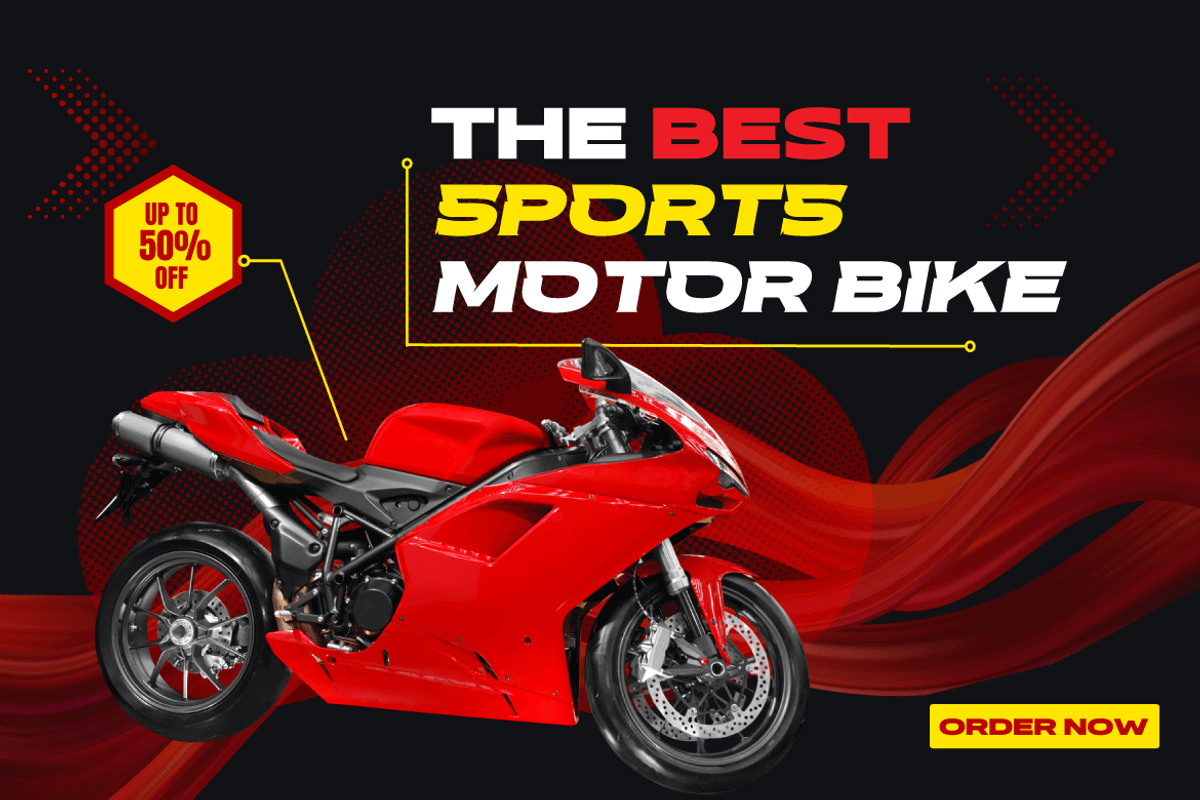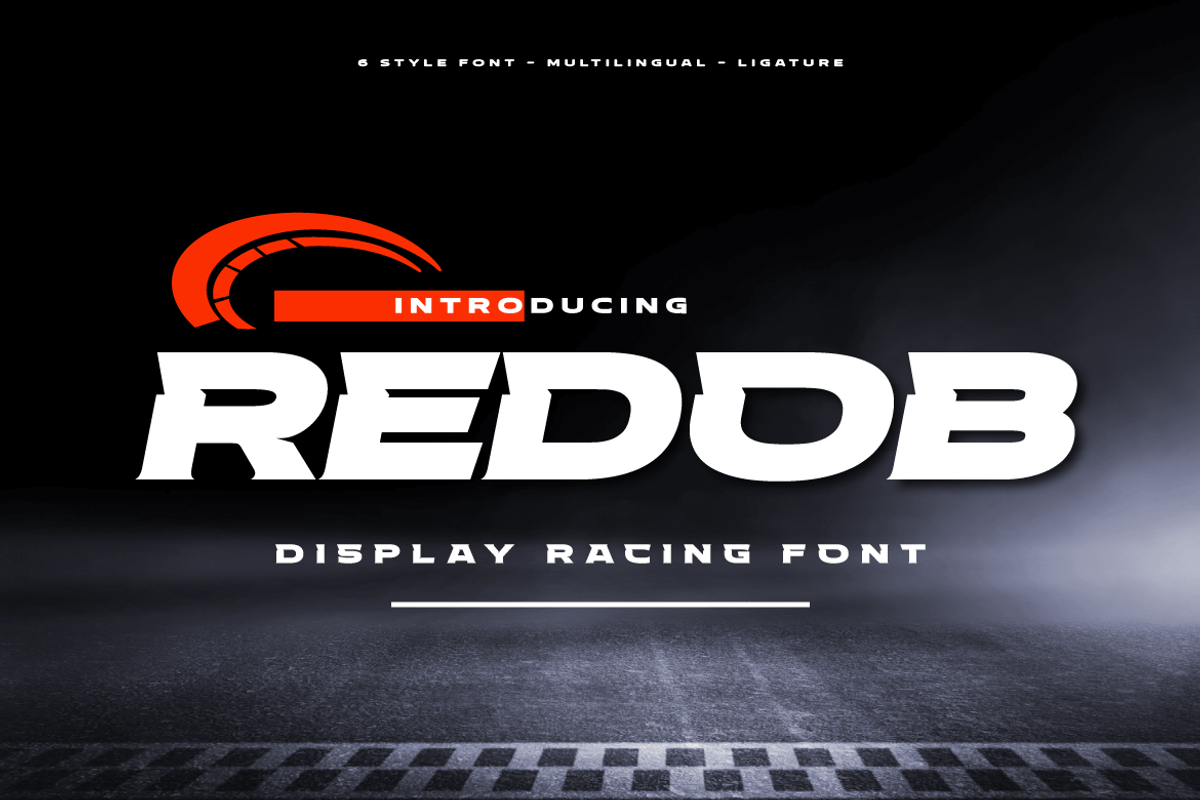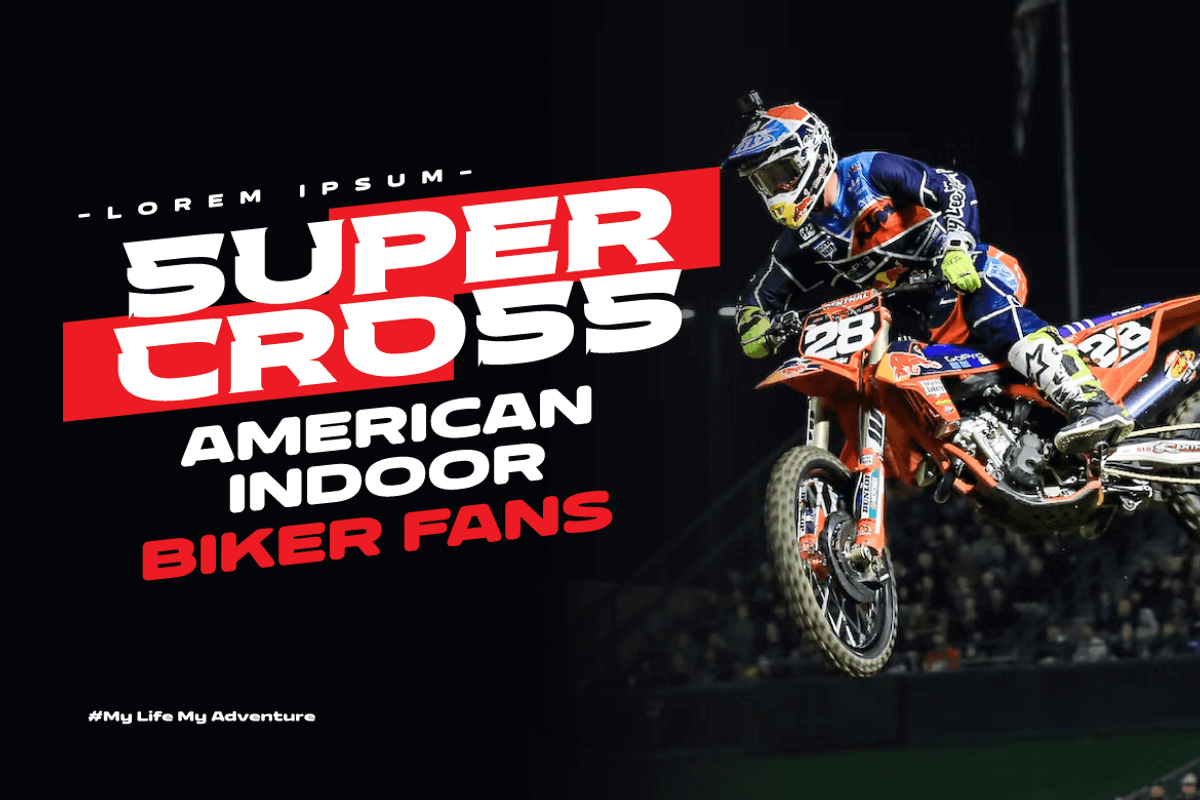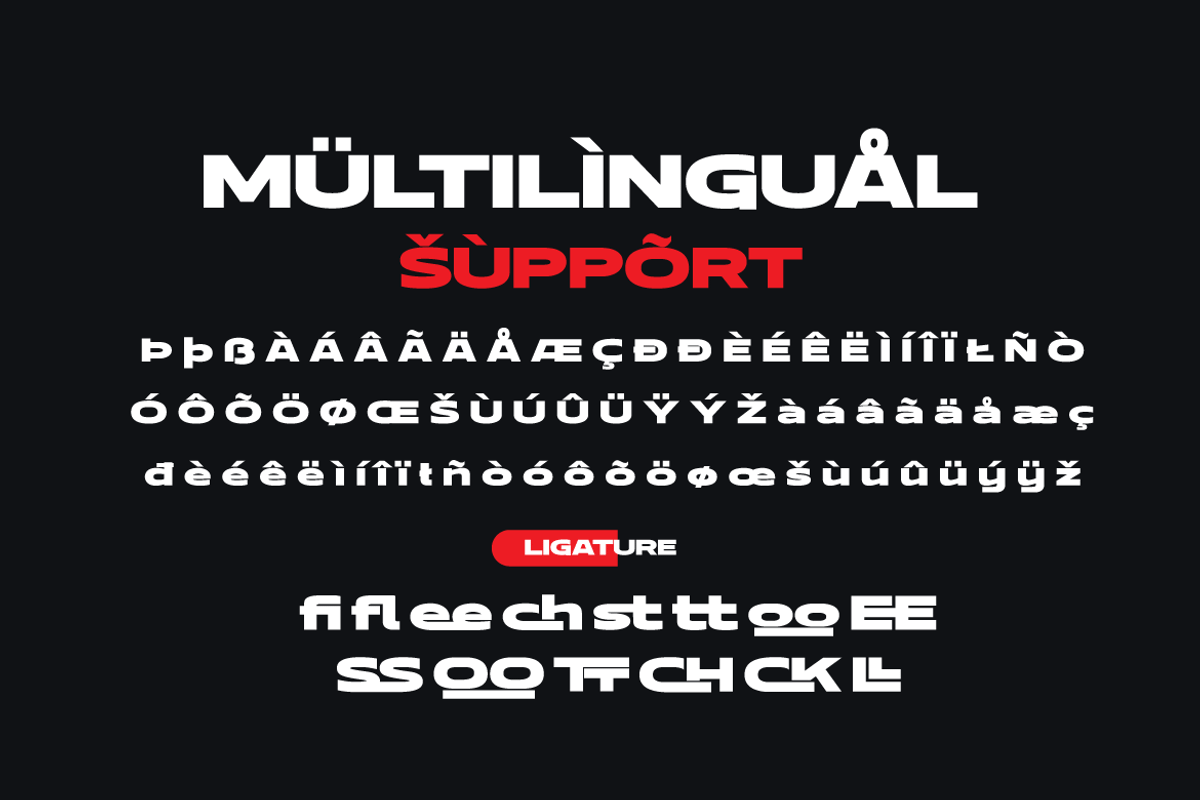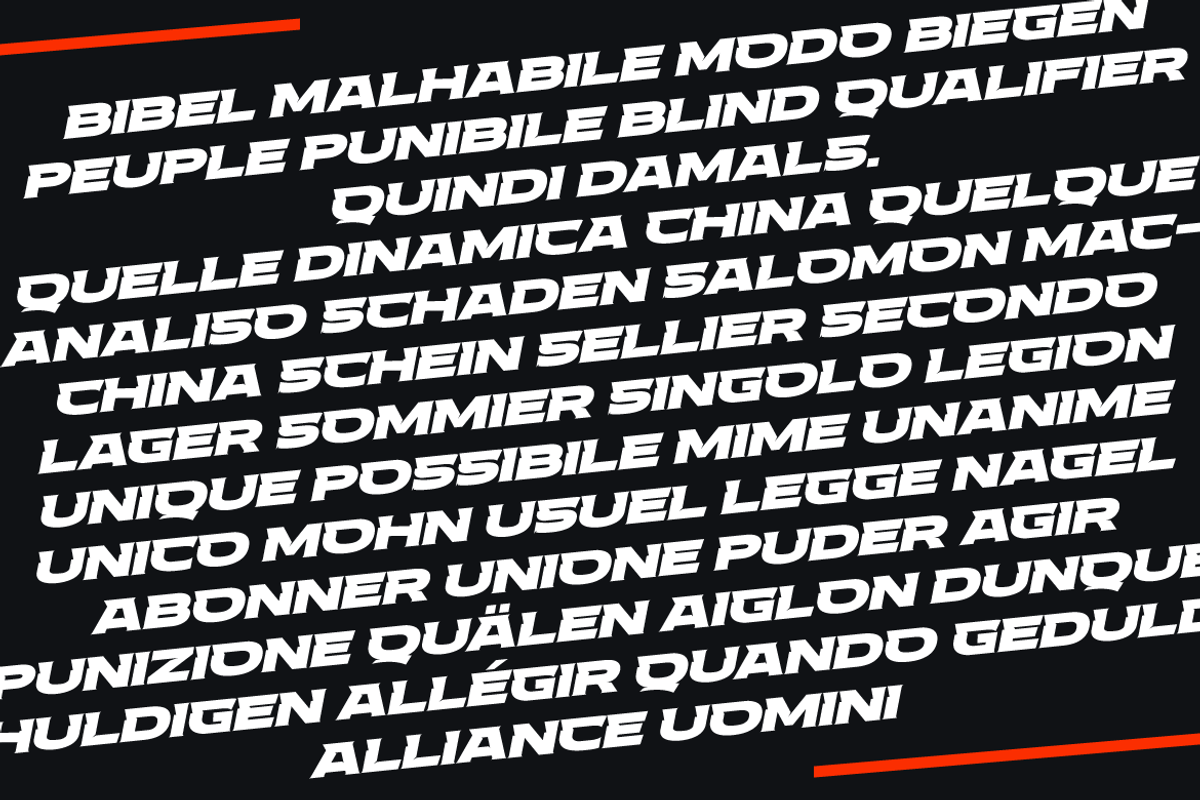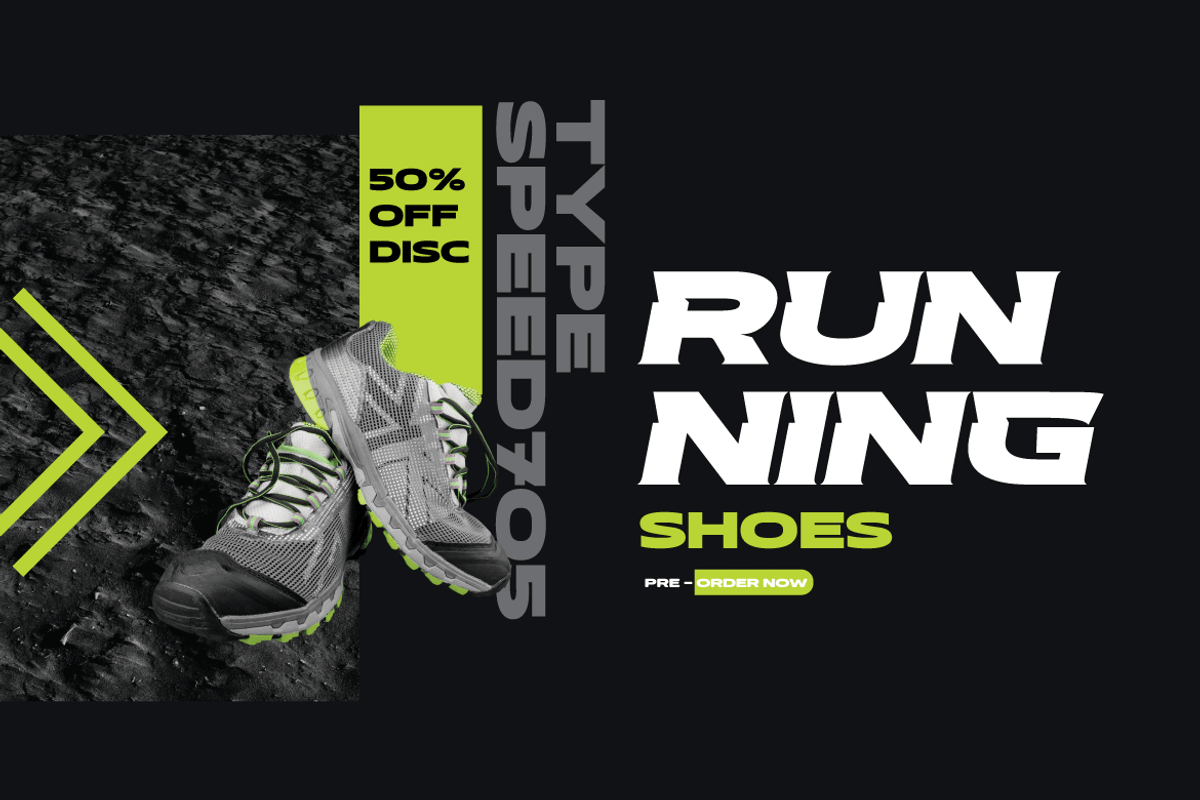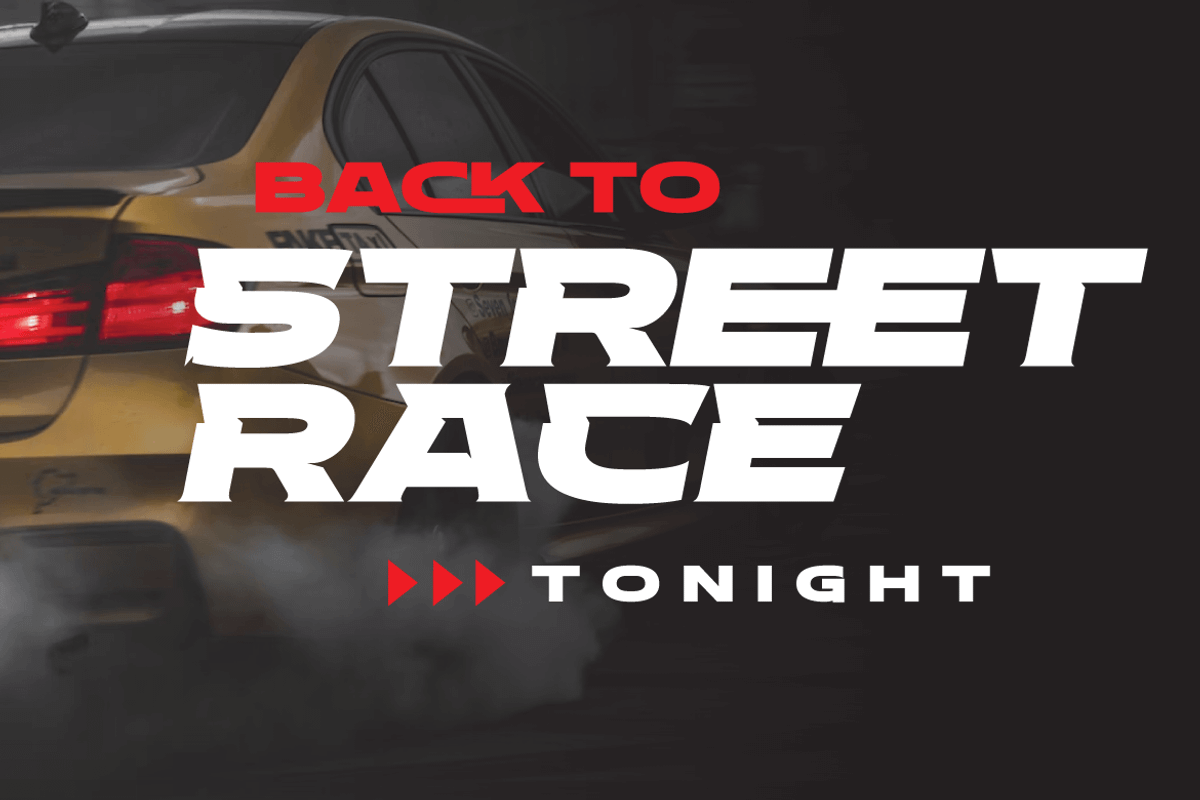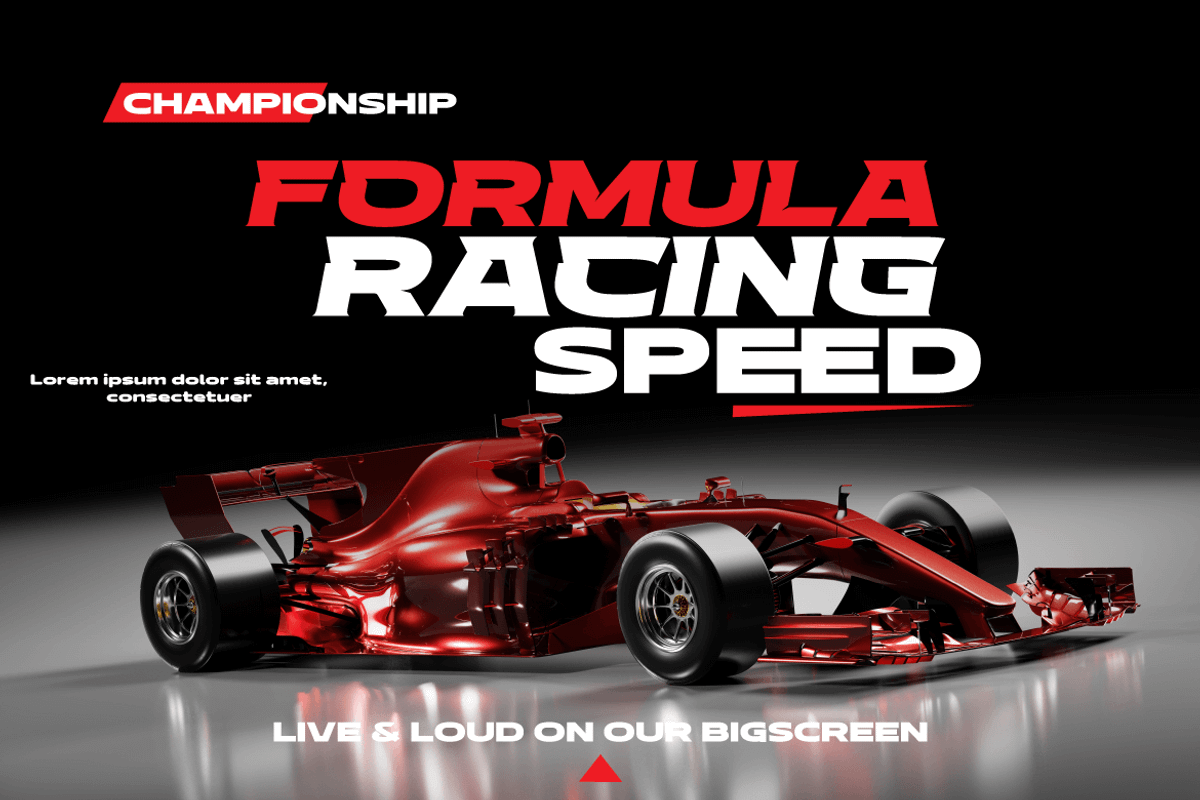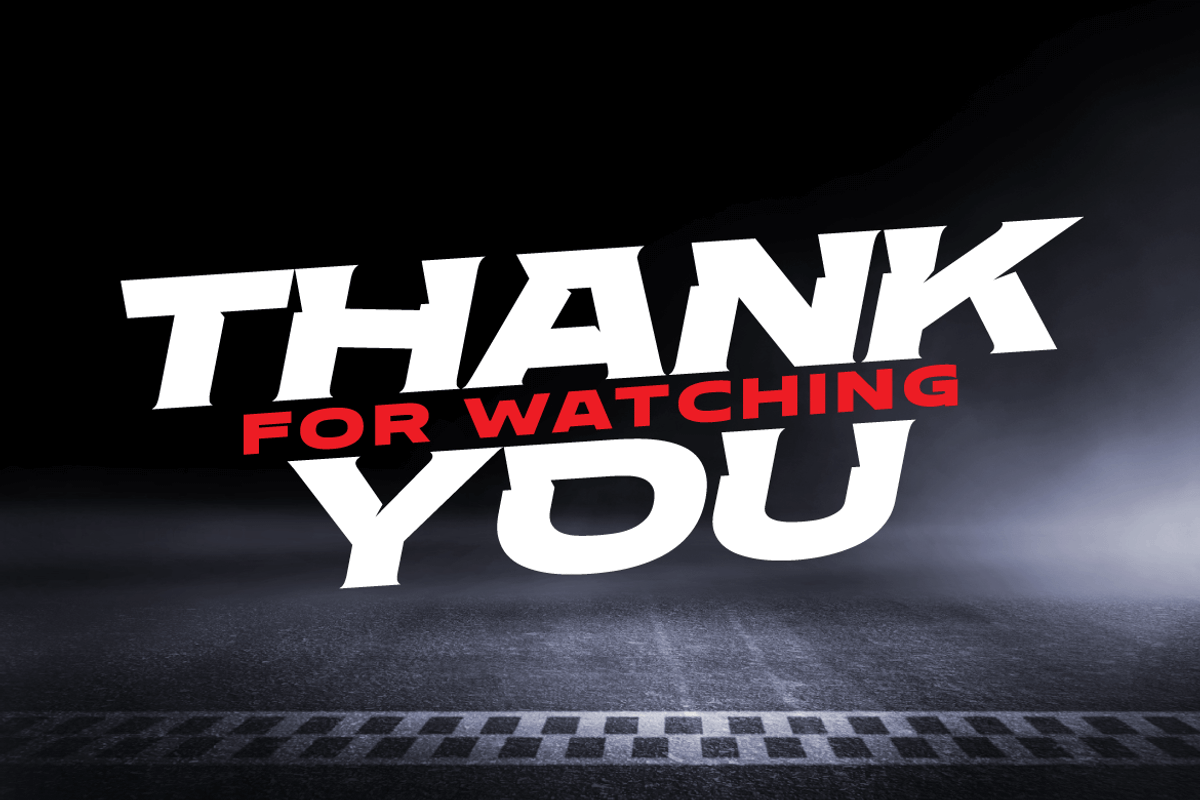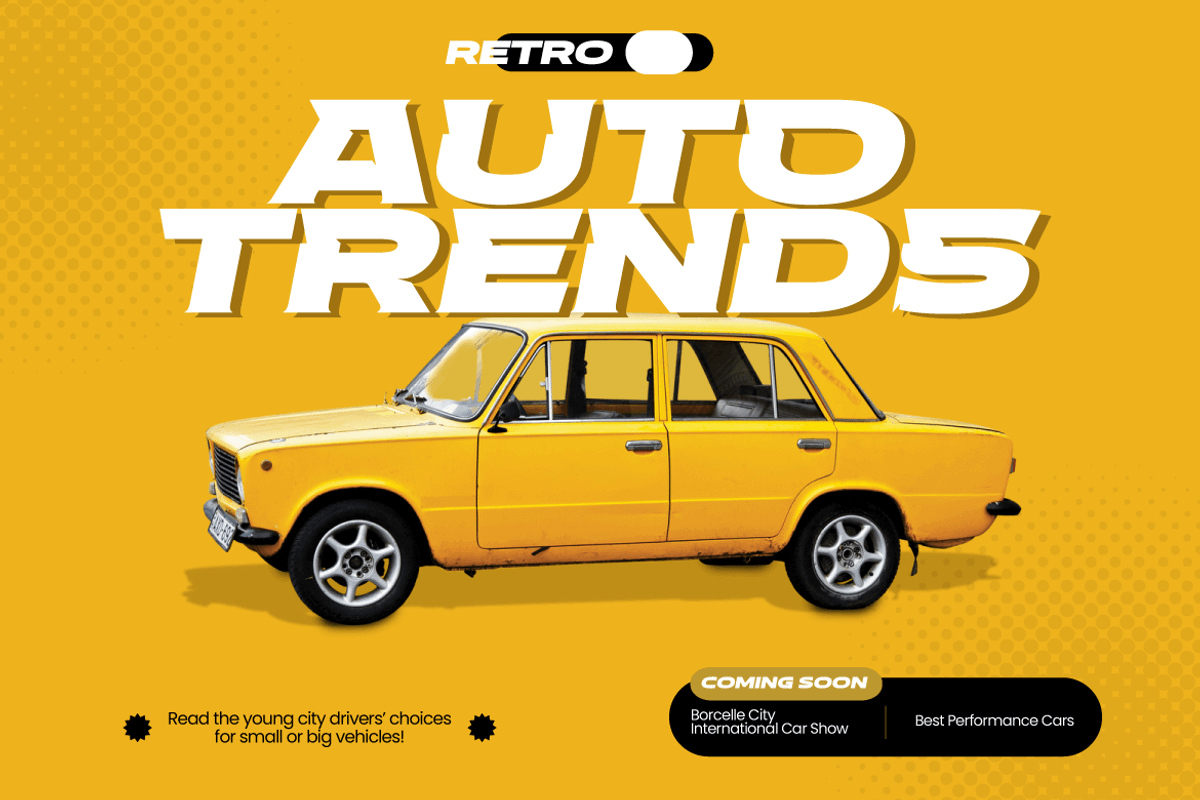
REDOB – Sport Racing Font
The Redob Racing Font is a strong-looking font that gives your project a bold and sporty personality. This font was designed with attention to detail to make your design project stand out from the rest. A bold, masculine font that’s perfect for creating that “in your project” look. Comes in 6 different styles: Regular, Round & Italic, each with a slightly different feel.
- Ligature, Alternate
- Fonts include Multilingual support